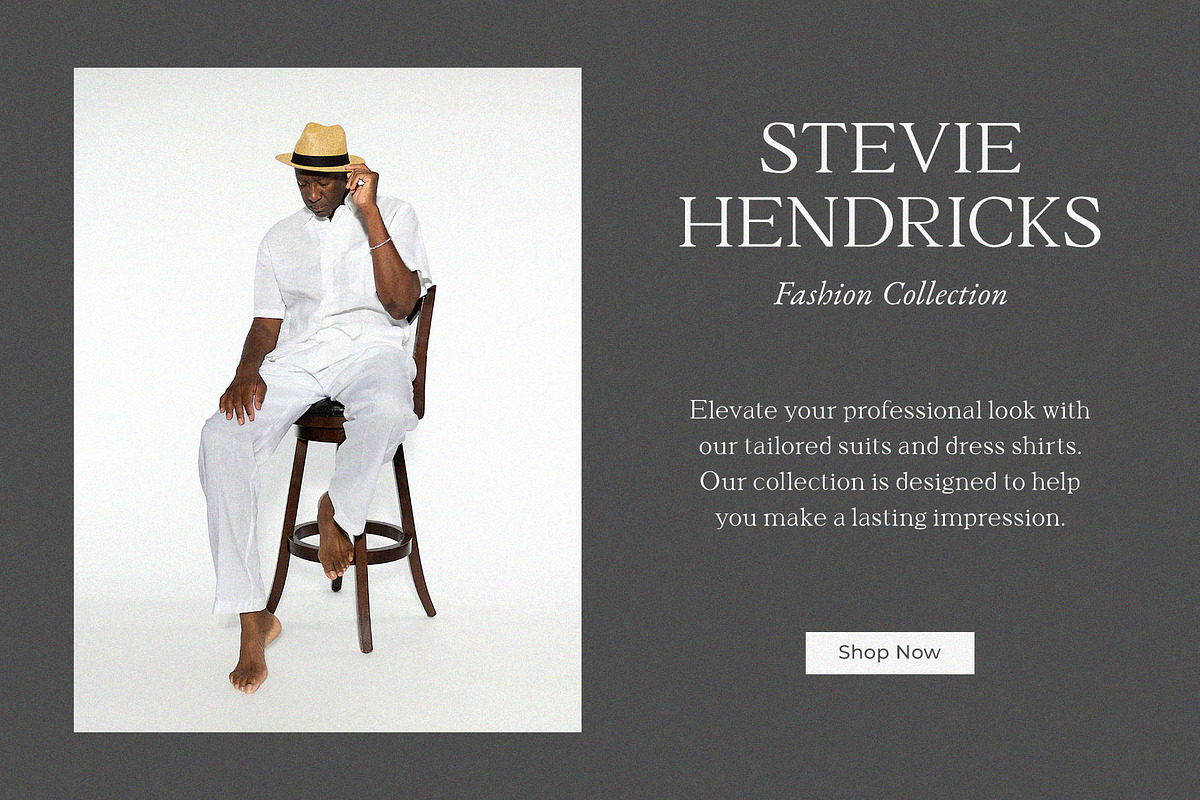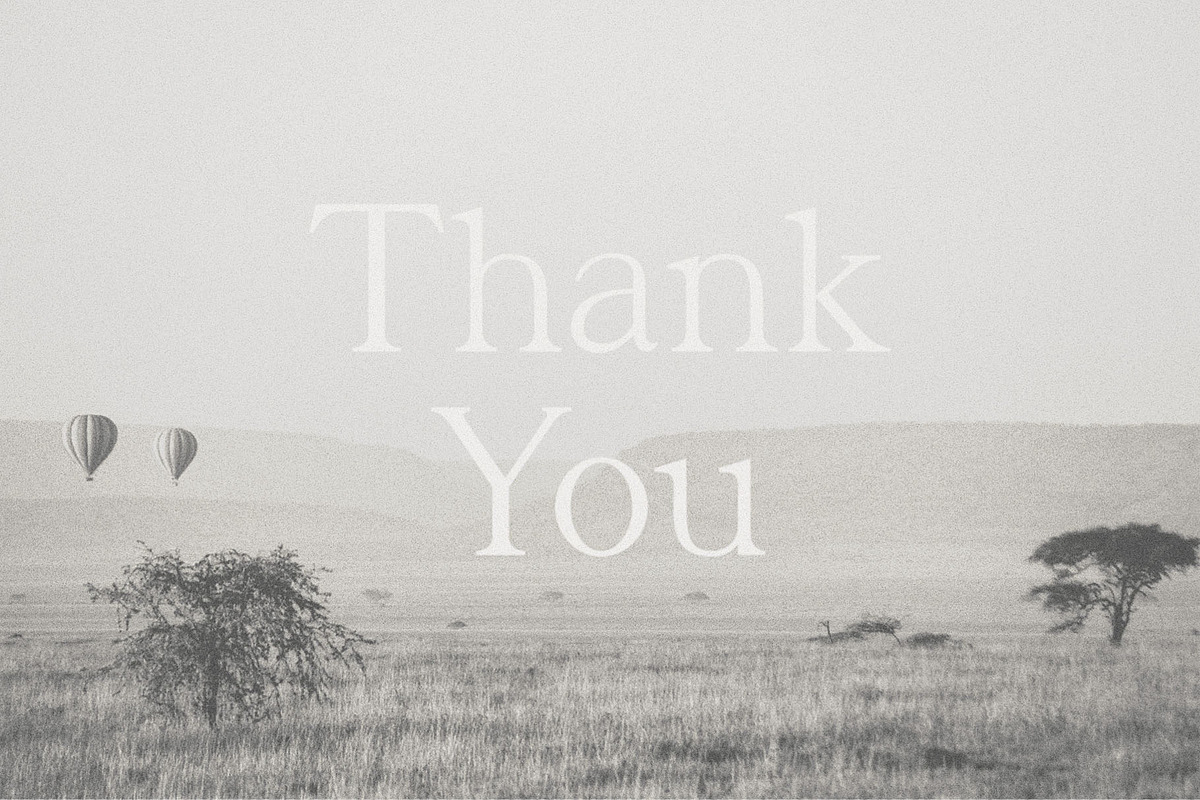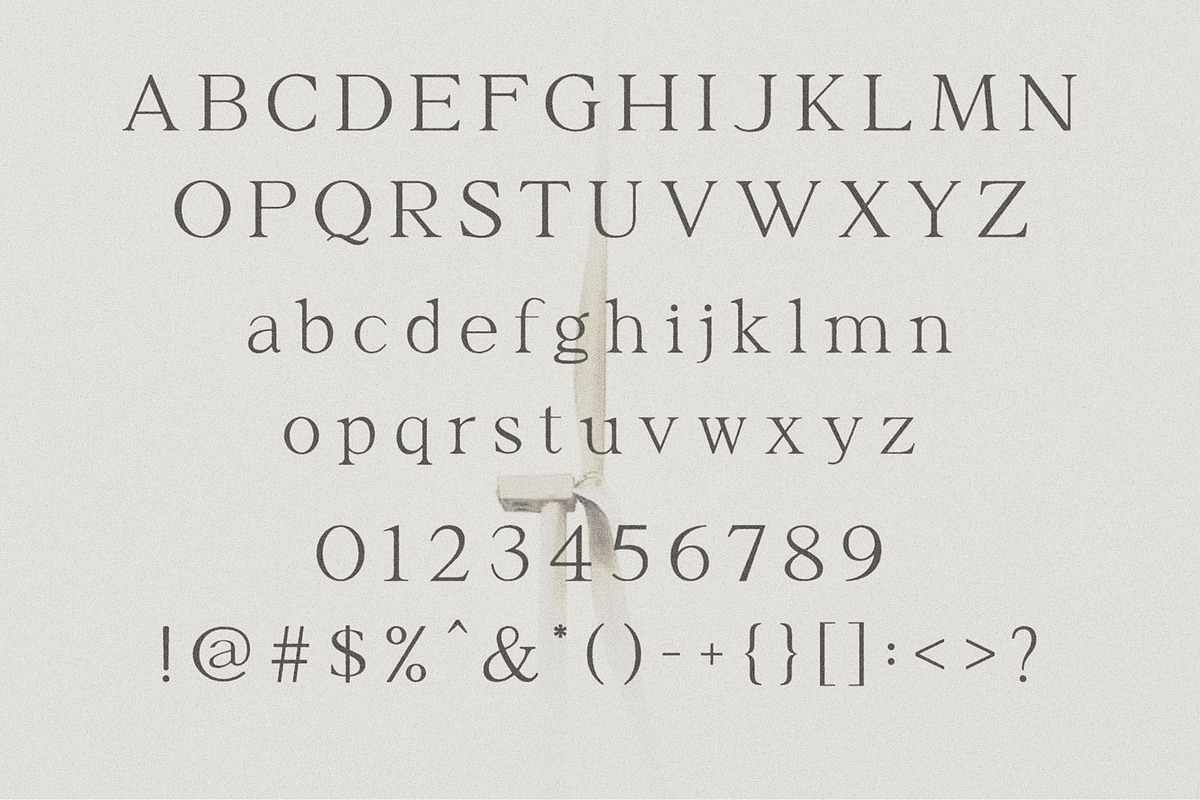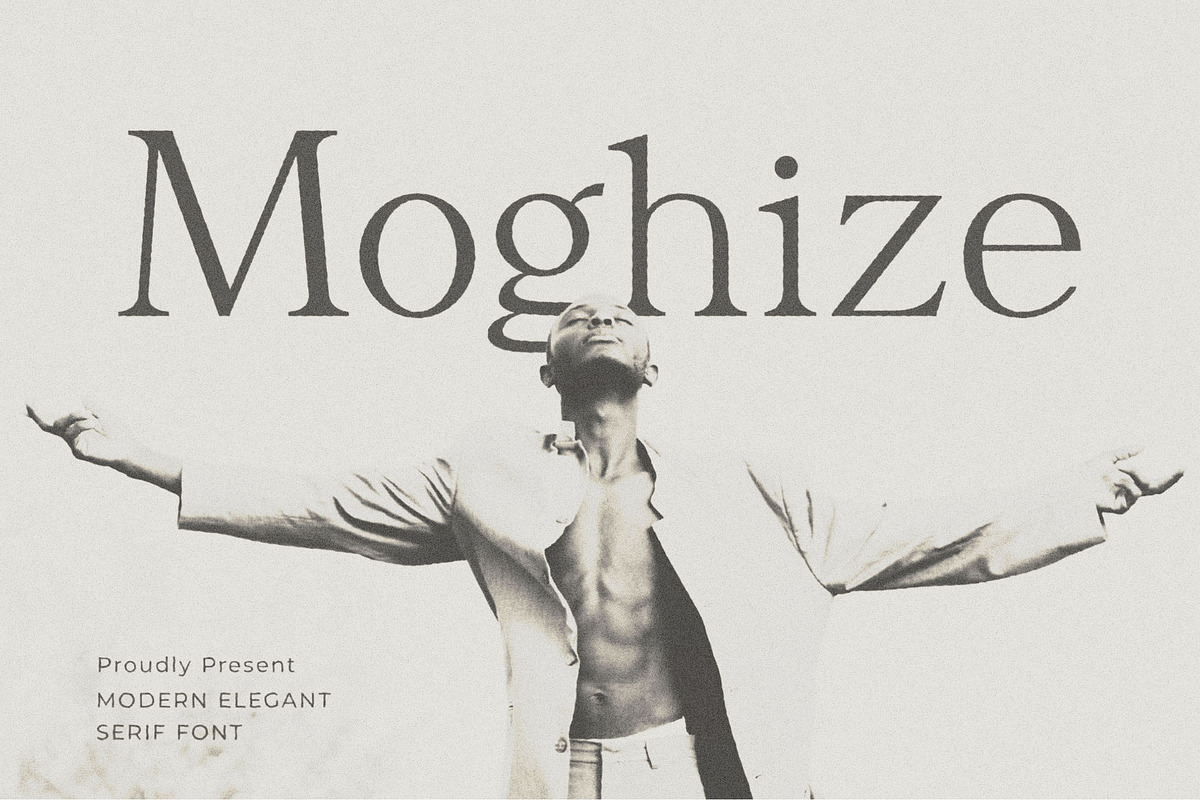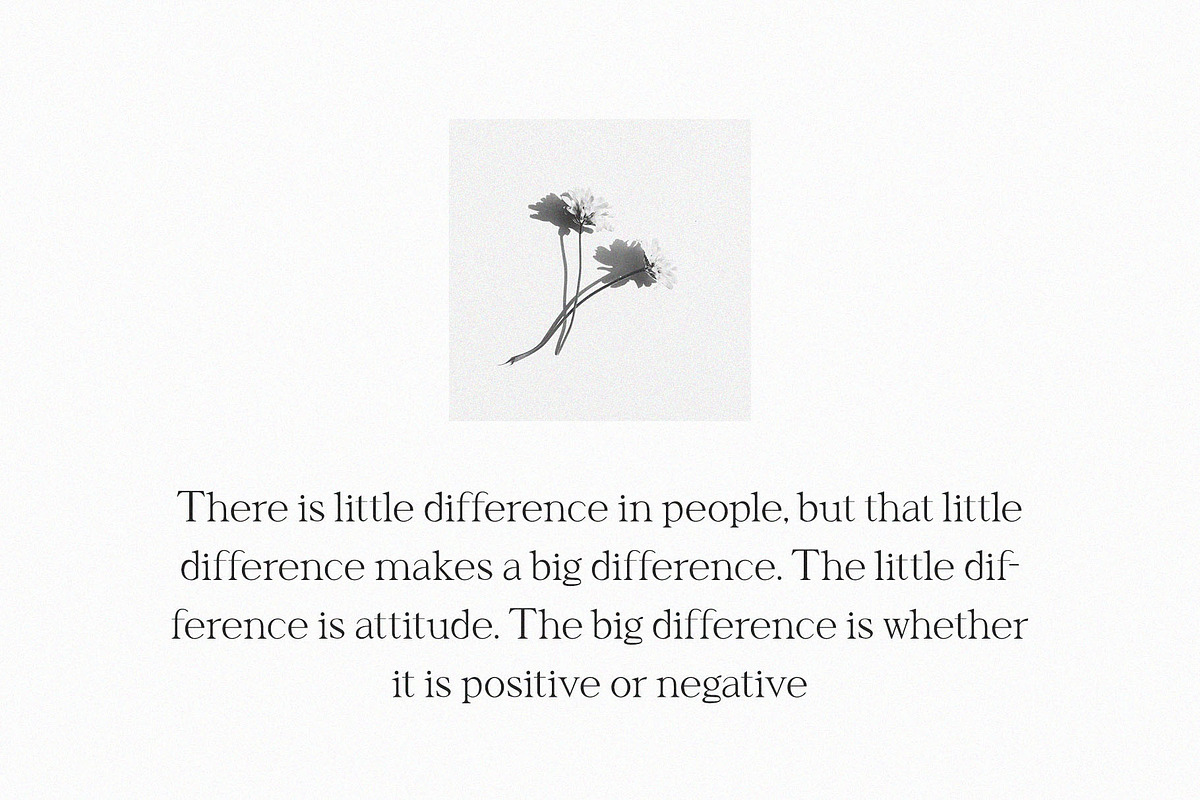
Moghize - Modern Elegant Serif
Introducing Moghize - Modern Elegant Serif. Moghize is a modern and simple font, best used as a display for headings, logos, branding, magazines, product packaging and invitations.